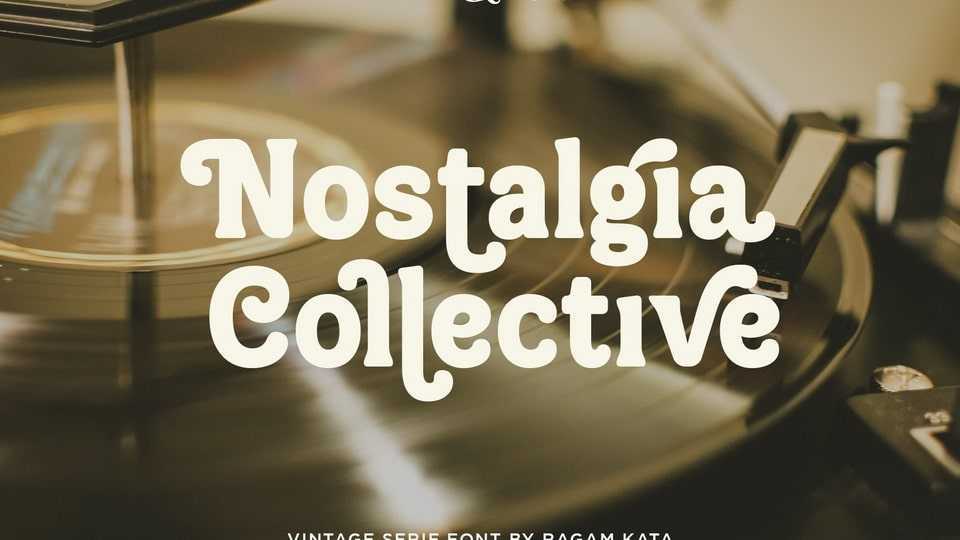
Download Nostalgia Collective font, a vintage serif typeface. With many alternate features for each letter, Nostalgia Collective provides flexibility and variety in the appearance of the text.